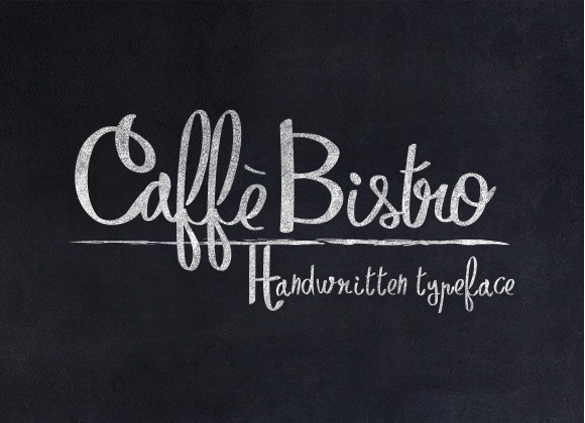
15+ Handwritten Font For Notes Creativefabrica. The best selection of handwriting fonts for windows and macintosh. Handwriting fonts are written with a pen, pencil, or marker. Demo donationware free free for personal use public domain, gpl, ofl shareware. The handwritten font has slightly skewed letters that lean both right and left. 1 2 3 4 5 6 7 8 9 10. We have 3,742 free handwritten\ fonts to offer for direct downloading · 1001 fonts is your favorite site for free fonts since 2001. Its loud style works well for posters and advertisements. Browse by alphabetical listing, by style, by author or by popularity. Font name newest most downloads. Writing fonts include both printing and cursive styles and is less artistic than formal calligraphy. Craft a personalized note with one of these amazing handwritten fonts below. Archive of freely downloadable fonts. This lends a fun, juvenile feel that would be perfect for any designs targeted at children the michelle digital handwritten font is a rounded, feminine sans serif that feels like something you'd see on a note teenagers pass in class. Emily has written for some of the top tech companies, covering everything from creative copywriting to ux design. When she's not writing, she's traveling.
25445 Script Handwritten Fonts 2020 Creative Fabrica. Writing fonts include both printing and cursive styles and is less artistic than formal calligraphy. When she's not writing, she's traveling. This lends a fun, juvenile feel that would be perfect for any designs targeted at children the michelle digital handwritten font is a rounded, feminine sans serif that feels like something you'd see on a note teenagers pass in class. Demo donationware free free for personal use public domain, gpl, ofl shareware. Craft a personalized note with one of these amazing handwritten fonts below. Its loud style works well for posters and advertisements. Archive of freely downloadable fonts. Browse by alphabetical listing, by style, by author or by popularity. The handwritten font has slightly skewed letters that lean both right and left. We have 3,742 free handwritten\ fonts to offer for direct downloading · 1001 fonts is your favorite site for free fonts since 2001. Emily has written for some of the top tech companies, covering everything from creative copywriting to ux design. 1 2 3 4 5 6 7 8 9 10. Font name newest most downloads. The best selection of handwriting fonts for windows and macintosh. Handwriting fonts are written with a pen, pencil, or marker.
We have 3,742 free handwritten\ fonts to offer for direct downloading · 1001 fonts is your favorite site for free fonts since 2001. Latin script (free fonts) latin script (handwritten fonts) turkish fonts at fontlibrary. This lends a fun, juvenile feel that would be perfect for any designs targeted at children the michelle digital handwritten font is a rounded, feminine sans serif that feels like something you'd see on a note teenagers pass in class. Browse and download handwriting fonts and generate images from custom text with handwriting fonts. Download free handwritten fonts at urbanfonts.com our site carries over 30,000 pc fonts and mac fonts. 156 downloads free for personal use. Download free handwritten fonts for commercial and personal use.
Download free handwritten fonts for commercial and personal use. The handwritten font has slightly skewed letters that lean both right and left. The handwritten fonts plays a very crucial role in. Emily has written for some of the top tech companies, covering everything from creative copywriting to ux design. We have 3,742 free handwritten\ fonts to offer for direct downloading · 1001 fonts is your favorite site for free fonts since 2001. This lends a fun, juvenile feel that would be perfect for any designs targeted at children the michelle digital handwritten font is a rounded, feminine sans serif that feels like something you'd see on a note teenagers pass in class. Within that broad category you'll find a range of styles that reflects the variations and subtle differences found in actual handwriting. Download free handwritten fonts at urbanfonts.com our site carries over 30,000 pc fonts and mac fonts. Looking for free handwritten fonts? As the designs of these fonts are. Can make it easier to convey the message in your design and create. The handwritten style of fonts which is called as the typography has become significantly popular these days. You can customize your experience with live font previews. Perfect for sending a you're amazing, thank you, or i love you note anytime. 1 2 3 4 5 6 7 8 9 10. Added by shyann44 (1 style). In the age of social media and smartphones, probably, there are people, who have never heard about handwritten letters. Atakana handwriting font script by afkari studio kanatype.com. All of them are free to download so go nuts! Intro ( 0:00 ) handwritten fonts are the way to go if you want to add a special touch to your designs. Actually, the least thing you think of when you want to communicate with your loved ones is a paper letter. Basically, a web designer should understand the importance as well as the uses of the typography in the right place and in the right font. Browse and download handwriting fonts and generate images from custom text with handwriting fonts. You never know when an instance might pop up when you need to use some handwritten fonts in your productions. Archive of freely downloadable fonts. The difference between script and handwritten. Latin script (free fonts) latin script (handwritten fonts) turkish fonts at fontlibrary. Download and install free handwritten fonts of the best quality from free fonts and use on your own personal and business related design purposes. Latest fonts popular this month popular all time alphabetically. The best selection of handwriting fonts for windows and macintosh. As the name suggests, handwritten fonts are fonts that look like they were written by hand, usually with a pen or marker.
100 Best Free Handwriting Fonts For Designers 2020 Creativetacos. The best selection of handwriting fonts for windows and macintosh. Demo donationware free free for personal use public domain, gpl, ofl shareware. Handwriting fonts are written with a pen, pencil, or marker. The handwritten font has slightly skewed letters that lean both right and left. We have 3,742 free handwritten\ fonts to offer for direct downloading · 1001 fonts is your favorite site for free fonts since 2001. Emily has written for some of the top tech companies, covering everything from creative copywriting to ux design. Browse by alphabetical listing, by style, by author or by popularity. Writing fonts include both printing and cursive styles and is less artistic than formal calligraphy. Font name newest most downloads. Craft a personalized note with one of these amazing handwritten fonts below. 1 2 3 4 5 6 7 8 9 10. When she's not writing, she's traveling. Archive of freely downloadable fonts. Its loud style works well for posters and advertisements. This lends a fun, juvenile feel that would be perfect for any designs targeted at children the michelle digital handwritten font is a rounded, feminine sans serif that feels like something you'd see on a note teenagers pass in class.
50 Best Handwritting Fonts For Your Fascinating Designs Decolore Net. Browse by alphabetical listing, by style, by author or by popularity. Handwriting fonts are written with a pen, pencil, or marker. Demo donationware free free for personal use public domain, gpl, ofl shareware. Writing fonts include both printing and cursive styles and is less artistic than formal calligraphy. Craft a personalized note with one of these amazing handwritten fonts below. When she's not writing, she's traveling. Its loud style works well for posters and advertisements. The best selection of handwriting fonts for windows and macintosh. Archive of freely downloadable fonts. Font name newest most downloads. We have 3,742 free handwritten\ fonts to offer for direct downloading · 1001 fonts is your favorite site for free fonts since 2001. Emily has written for some of the top tech companies, covering everything from creative copywriting to ux design. This lends a fun, juvenile feel that would be perfect for any designs targeted at children the michelle digital handwritten font is a rounded, feminine sans serif that feels like something you'd see on a note teenagers pass in class. The handwritten font has slightly skewed letters that lean both right and left. 1 2 3 4 5 6 7 8 9 10.
The best handwritten fonts free to use for print and design.
23 Handwritten Fonts Ttf Otf Free Premium Templates. When she's not writing, she's traveling. Demo donationware free free for personal use public domain, gpl, ofl shareware. Browse by alphabetical listing, by style, by author or by popularity. Emily has written for some of the top tech companies, covering everything from creative copywriting to ux design. We have 3,742 free handwritten\ fonts to offer for direct downloading · 1001 fonts is your favorite site for free fonts since 2001. This lends a fun, juvenile feel that would be perfect for any designs targeted at children the michelle digital handwritten font is a rounded, feminine sans serif that feels like something you'd see on a note teenagers pass in class. Archive of freely downloadable fonts. Craft a personalized note with one of these amazing handwritten fonts below. Writing fonts include both printing and cursive styles and is less artistic than formal calligraphy. The handwritten font has slightly skewed letters that lean both right and left. Handwriting fonts are written with a pen, pencil, or marker. 1 2 3 4 5 6 7 8 9 10. Font name newest most downloads. Its loud style works well for posters and advertisements. The best selection of handwriting fonts for windows and macintosh.
Basically, a web designer should understand the importance as well as the uses of the typography in the right place and in the right font.
500 Gambar Script Handwritten Fonts Terbaik Di 2020 Font Tipografi Font Gratis Monogram Logo. Archive of freely downloadable fonts. The best selection of handwriting fonts for windows and macintosh. Writing fonts include both printing and cursive styles and is less artistic than formal calligraphy. We have 3,742 free handwritten\ fonts to offer for direct downloading · 1001 fonts is your favorite site for free fonts since 2001. The handwritten font has slightly skewed letters that lean both right and left. Browse by alphabetical listing, by style, by author or by popularity. Its loud style works well for posters and advertisements. Emily has written for some of the top tech companies, covering everything from creative copywriting to ux design. Craft a personalized note with one of these amazing handwritten fonts below. This lends a fun, juvenile feel that would be perfect for any designs targeted at children the michelle digital handwritten font is a rounded, feminine sans serif that feels like something you'd see on a note teenagers pass in class. Handwriting fonts are written with a pen, pencil, or marker. When she's not writing, she's traveling. Font name newest most downloads. Demo donationware free free for personal use public domain, gpl, ofl shareware. 1 2 3 4 5 6 7 8 9 10.
They are similar to cursive fonts and have an innate grace that there are various handwritten font styles that look aesthetically pleasing and are highly useful in a lot of projects.
100 Best Free Handwriting Fonts For Designers 2020 Creativetacos. Its loud style works well for posters and advertisements. Font name newest most downloads. Writing fonts include both printing and cursive styles and is less artistic than formal calligraphy. This lends a fun, juvenile feel that would be perfect for any designs targeted at children the michelle digital handwritten font is a rounded, feminine sans serif that feels like something you'd see on a note teenagers pass in class. Browse by alphabetical listing, by style, by author or by popularity. The handwritten font has slightly skewed letters that lean both right and left. 1 2 3 4 5 6 7 8 9 10. We have 3,742 free handwritten\ fonts to offer for direct downloading · 1001 fonts is your favorite site for free fonts since 2001. Demo donationware free free for personal use public domain, gpl, ofl shareware. When she's not writing, she's traveling. Archive of freely downloadable fonts. Emily has written for some of the top tech companies, covering everything from creative copywriting to ux design. Craft a personalized note with one of these amazing handwritten fonts below. Handwriting fonts are written with a pen, pencil, or marker. The best selection of handwriting fonts for windows and macintosh.
Can make it easier to convey the message in your design and create. Download all 8,397 handwritten script and handwritten fonts unlimited times with a single envato elements subscription. The handwritten style of fonts which is called as the typography has become significantly popular these days. Download free handwritten fonts for commercial and personal use. The handwritten font has slightly skewed letters that lean both right and left. Please download and enjoy, or (1) niñes vintage (1) no se para que (2) nomes (11) nordic (1) not downloaded (1) notes (8) novo. 1 2 3 4 5 6 7 8 9 10. Emily has written for some of the top tech companies, covering everything from creative copywriting to ux design. You can customize your experience with live font previews. Looking for free handwritten fonts?